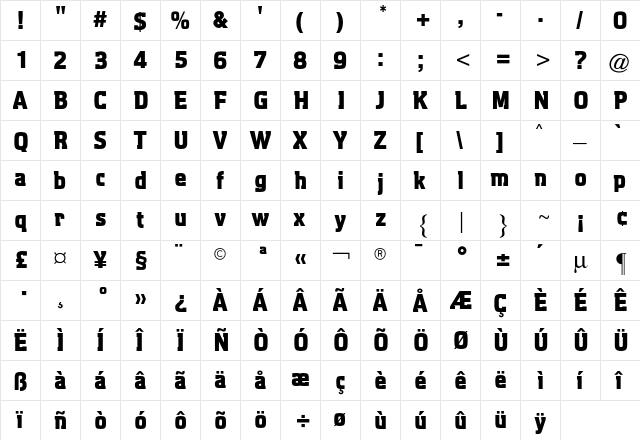
Aquarius CG No8 Regular
Design Context for Aquarius CG No8 Typeface
Aquarius CG No8 is a composed and adaptable typeface that performs quietly and consistently across a wide range of design contexts.
Pro Tip: Use Aquarius CG No8 in both headline and body roles to test its range before committing to a single application.